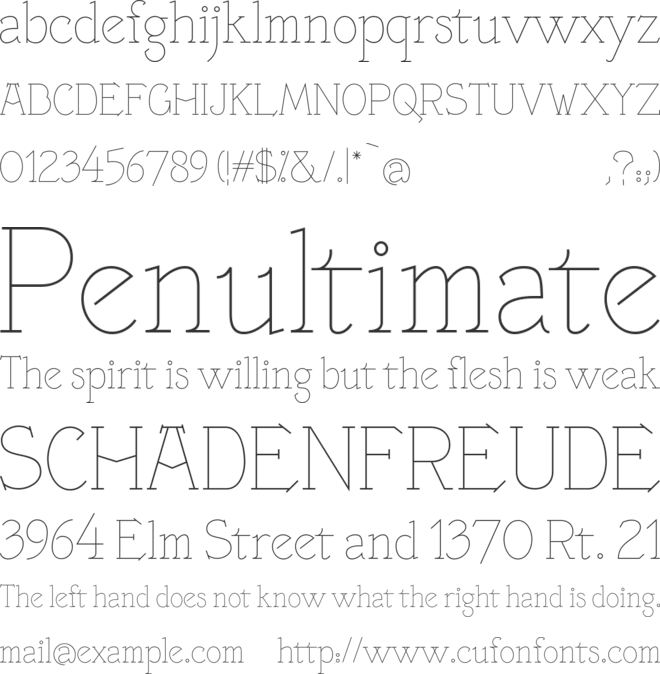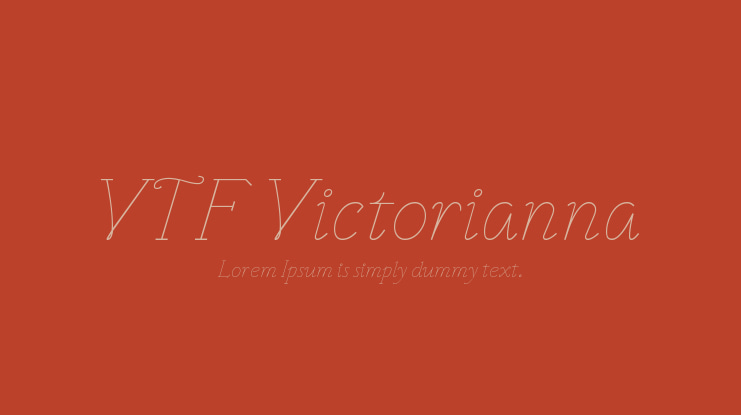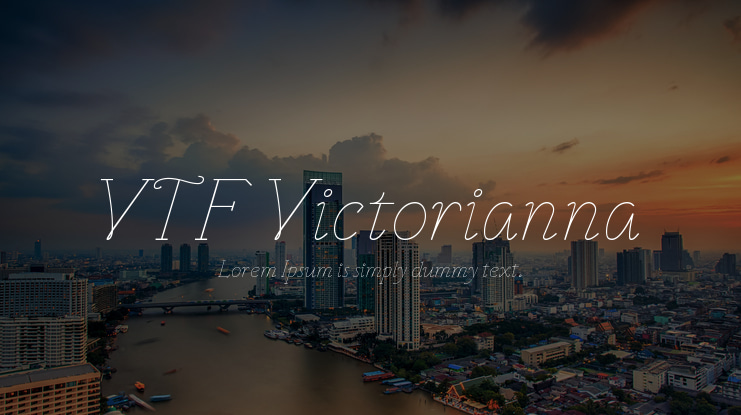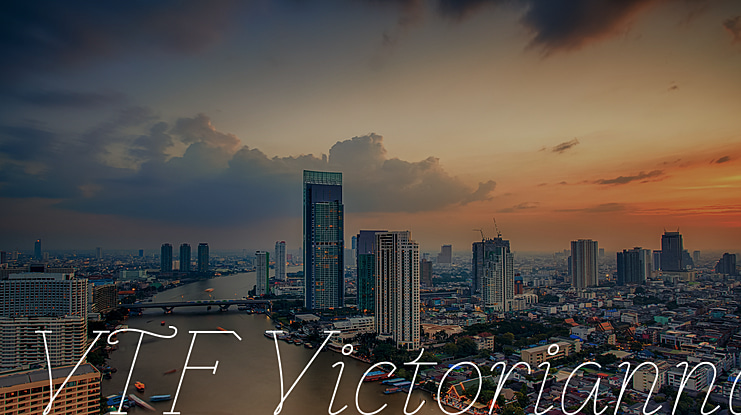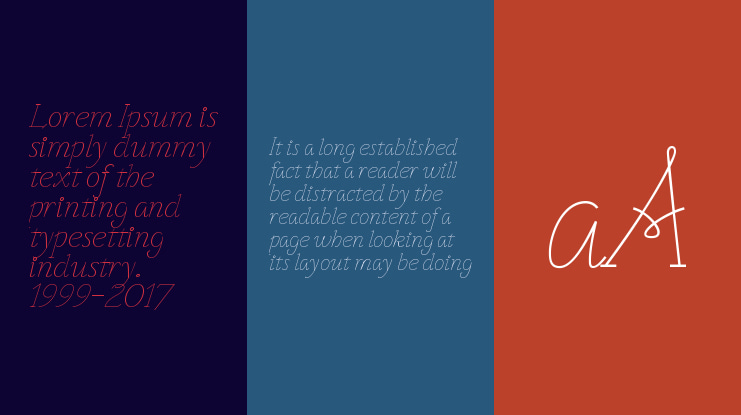
VTF Victorianna Font Family
Sébastien Hayez
Thin roman & italic font, inspired by English Victorian types. Thin roman: 3 titling styles on caps, ligatures on lower cases. Thin Italic: many ligatures on lower cases.
Originally drawn by Sébastien Hayez, then developed by Jérémy Landes.